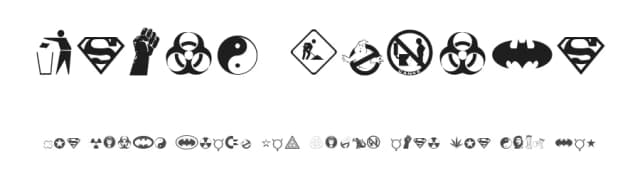
About Taito All Stars Font
Taito All Stars is a dingbat font designed by Freaky Fonts. It includes 74 glyphs, a regular weight, TTF (TrueType) format, and 89 languages. Taito All Stars is free to download; check the license details on this page before commercial use. Dingbat fonts like Taito All Stars work best for icons, ornaments, bullet points, and decorative accents.
| Designer | ck! [freakyfonts] |
Taito All Stars Font is a versatile dingbats font that works for both headings and body text. Pair it with a contrasting sans-serif or serif font to add visual interest and a clear distinction between titles and body copy.
Taito All Stars Font
by Freaky Fonts
Taito All Stars Font is a dingbats typeface by Freaky Fonts, ideal for logos, invitations, branding, and creative projects.